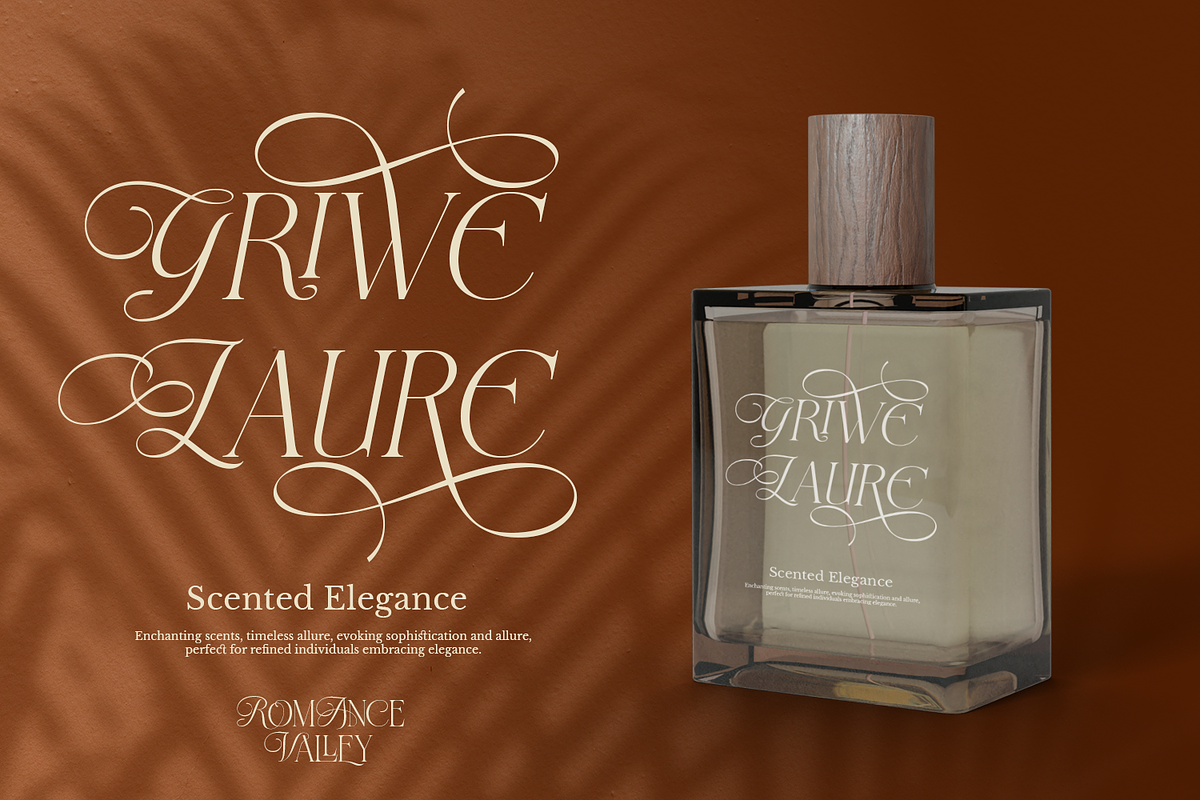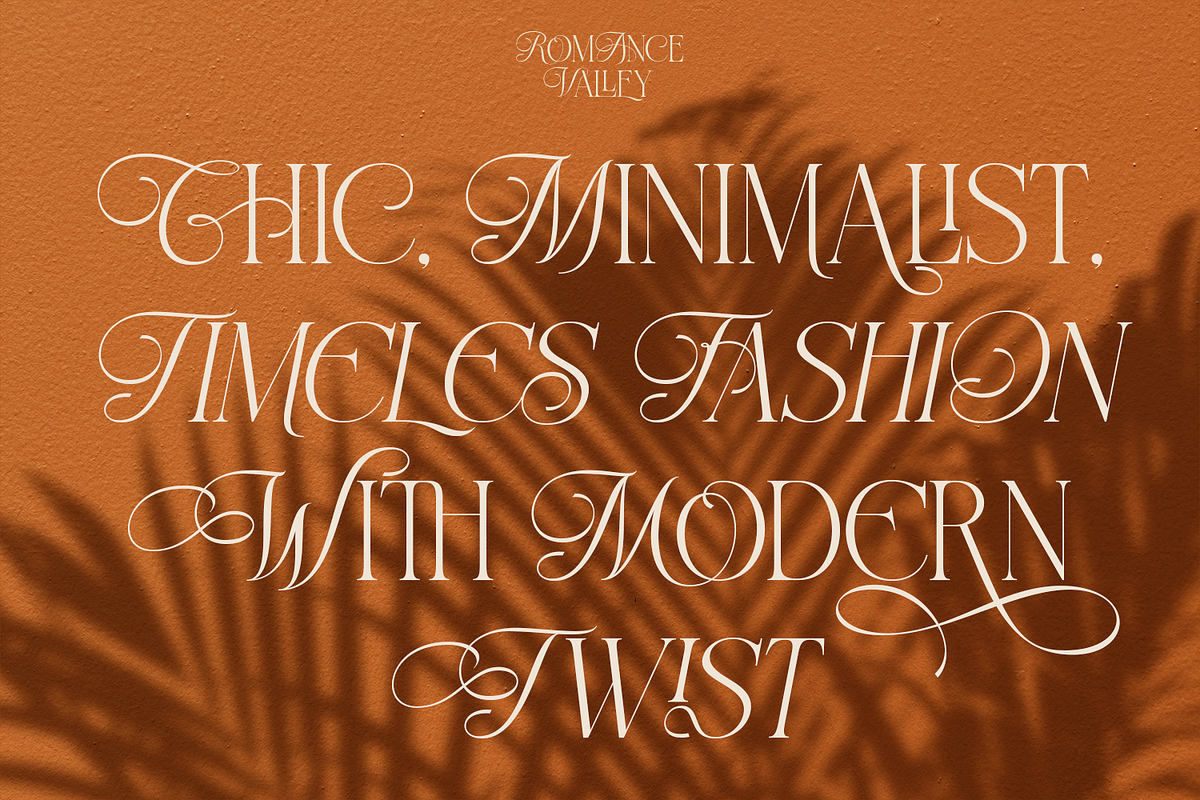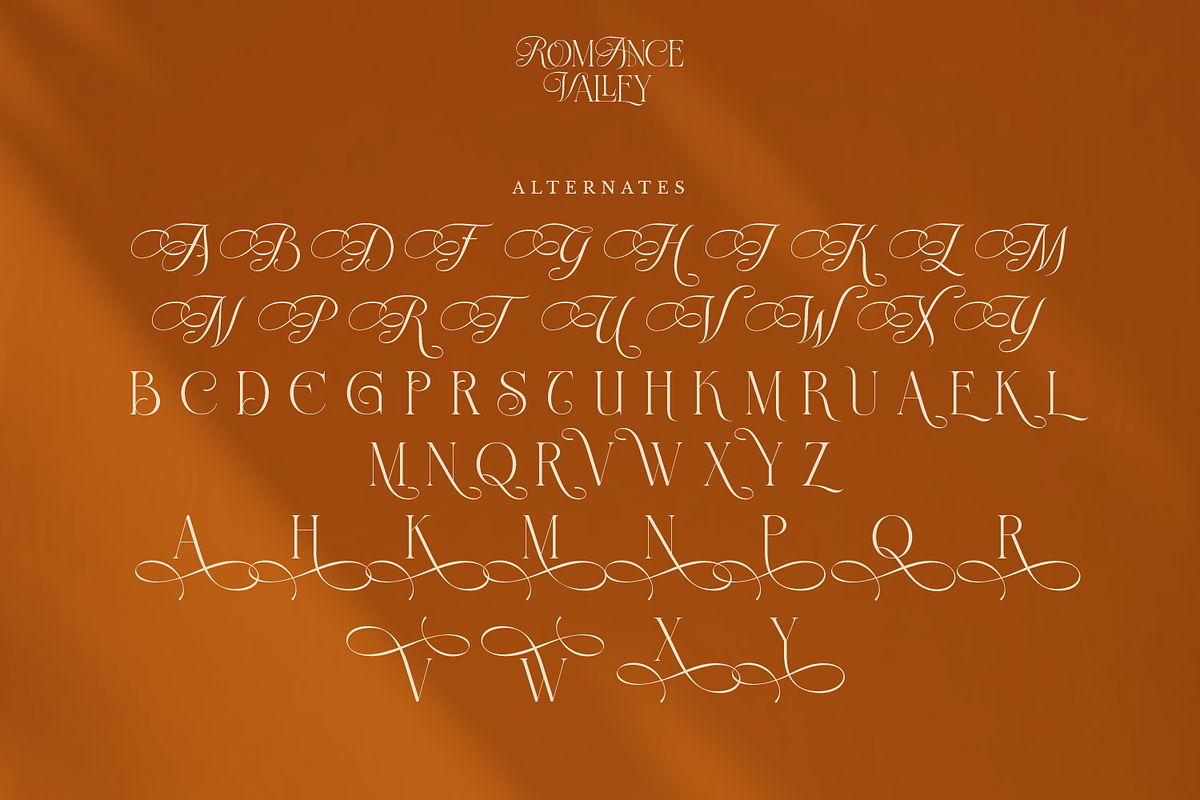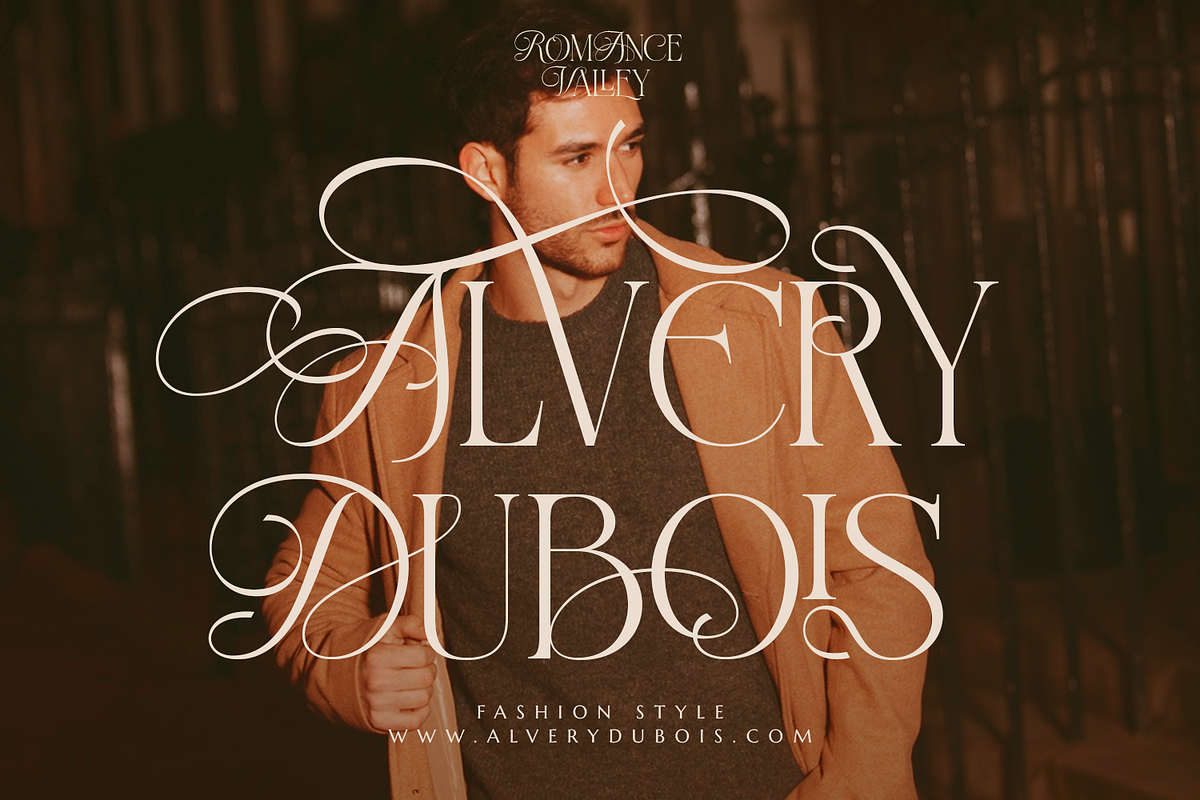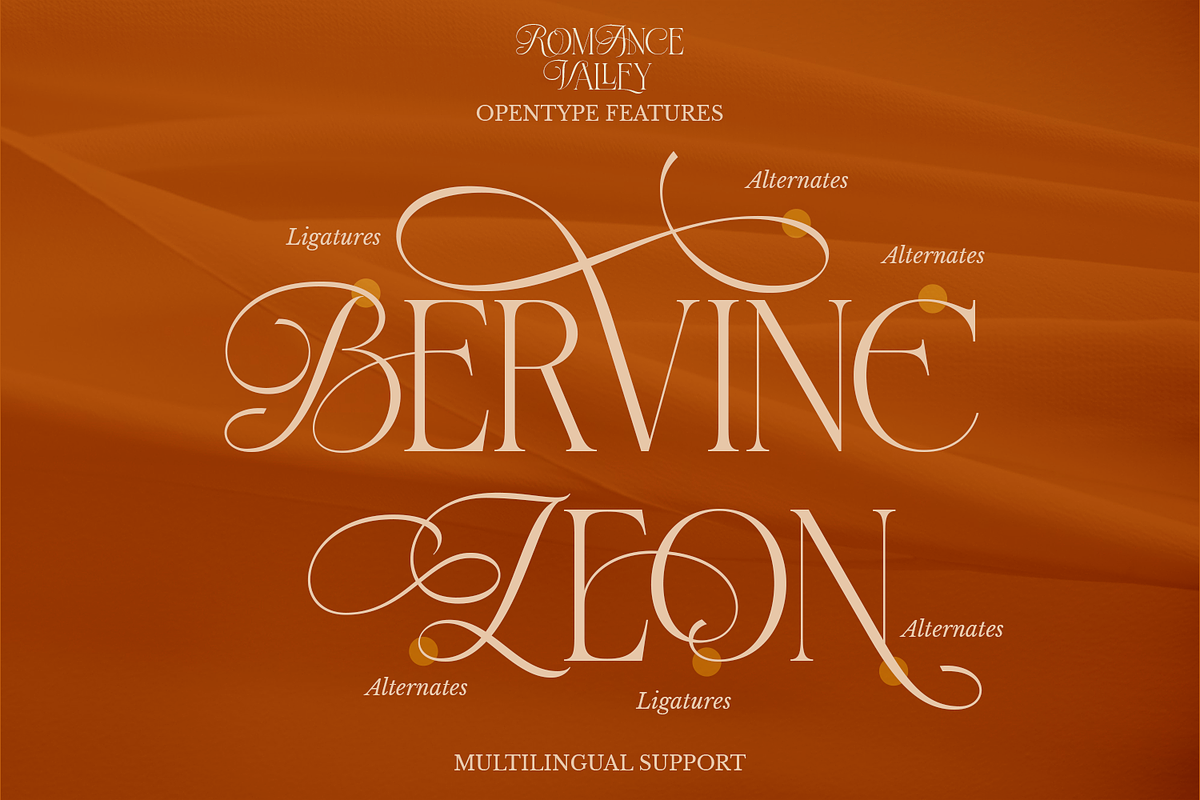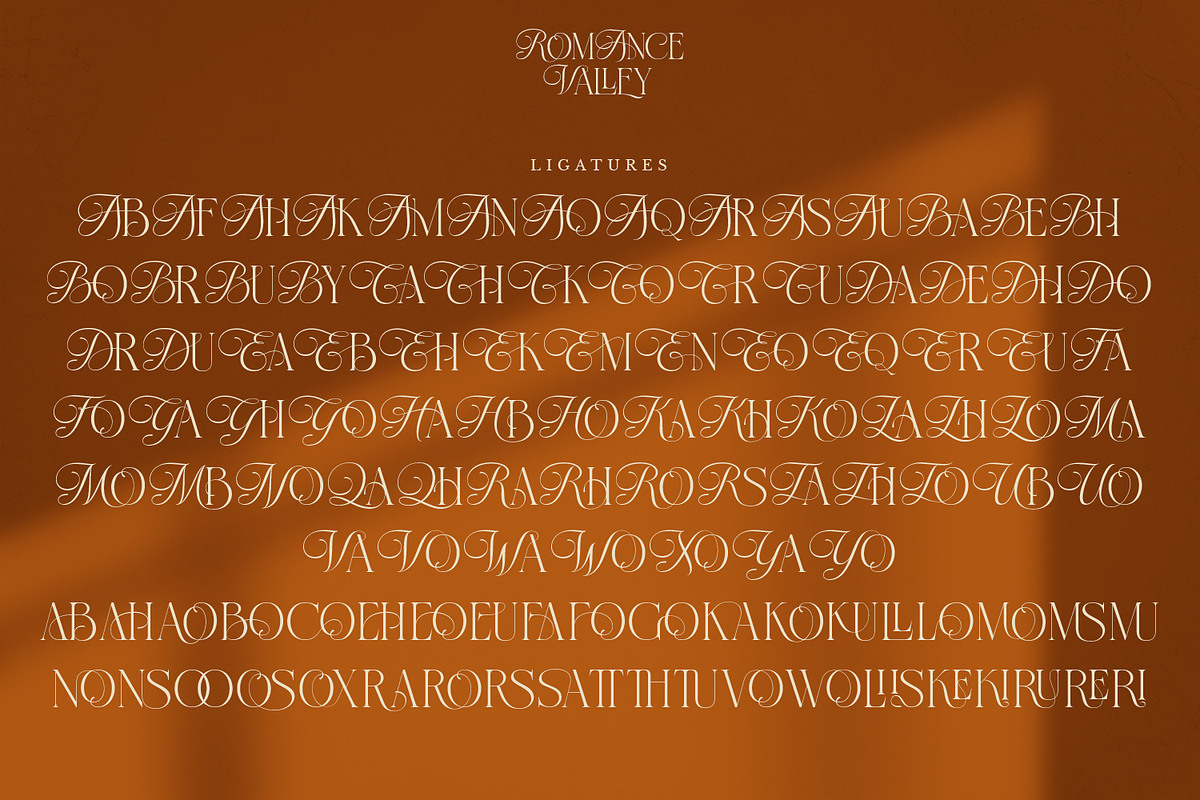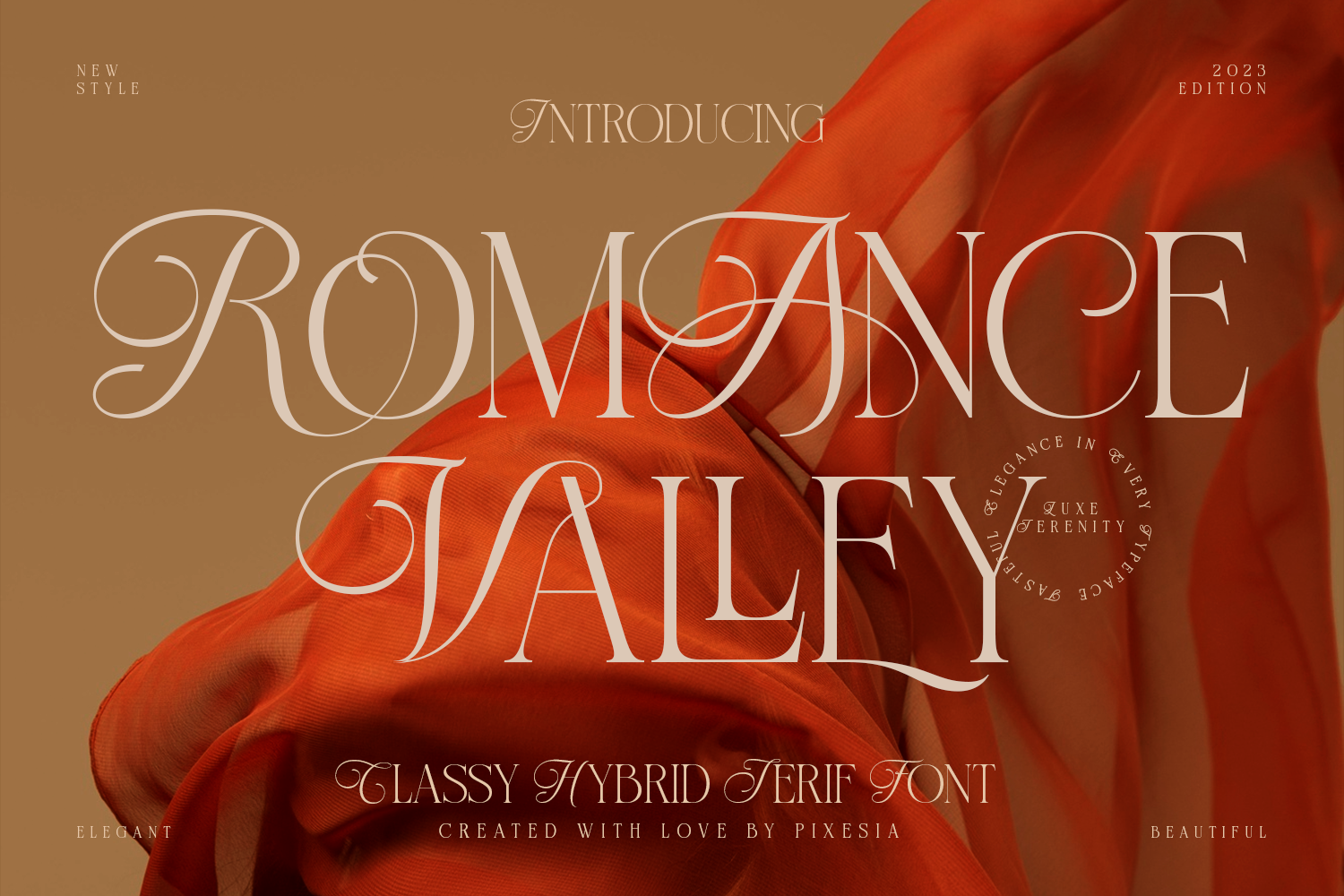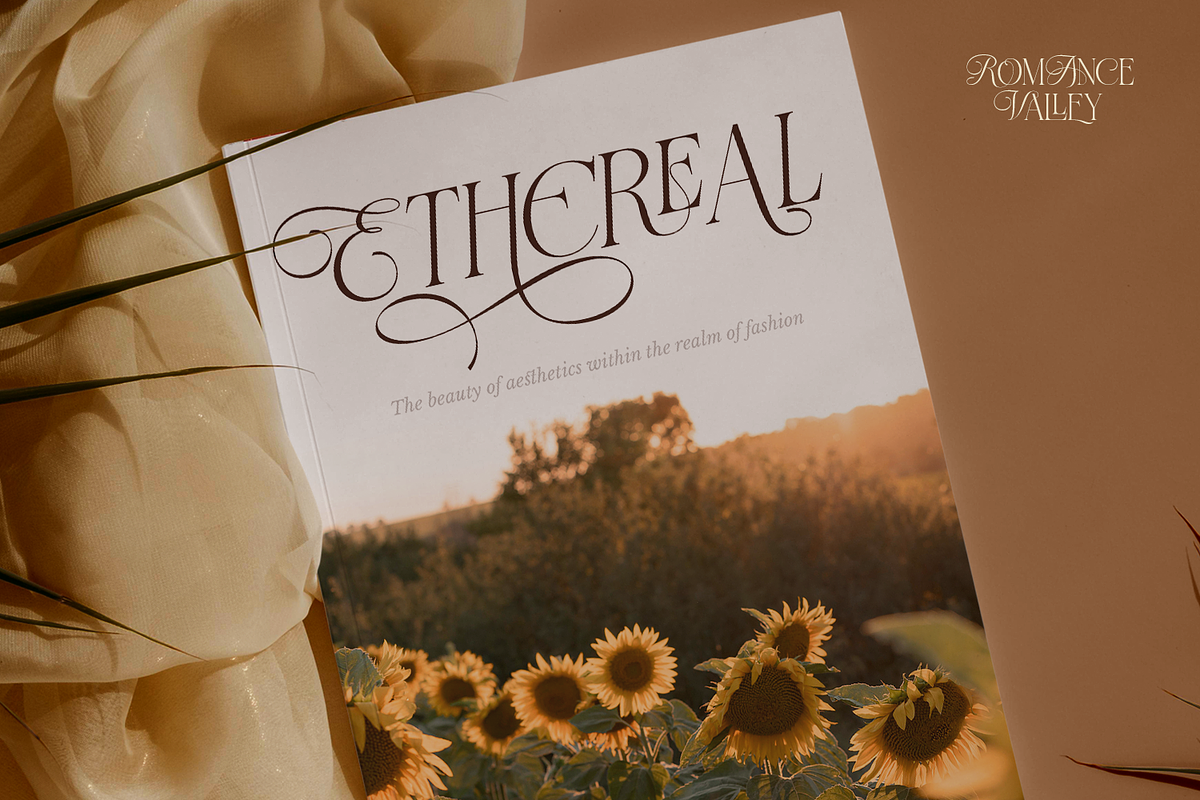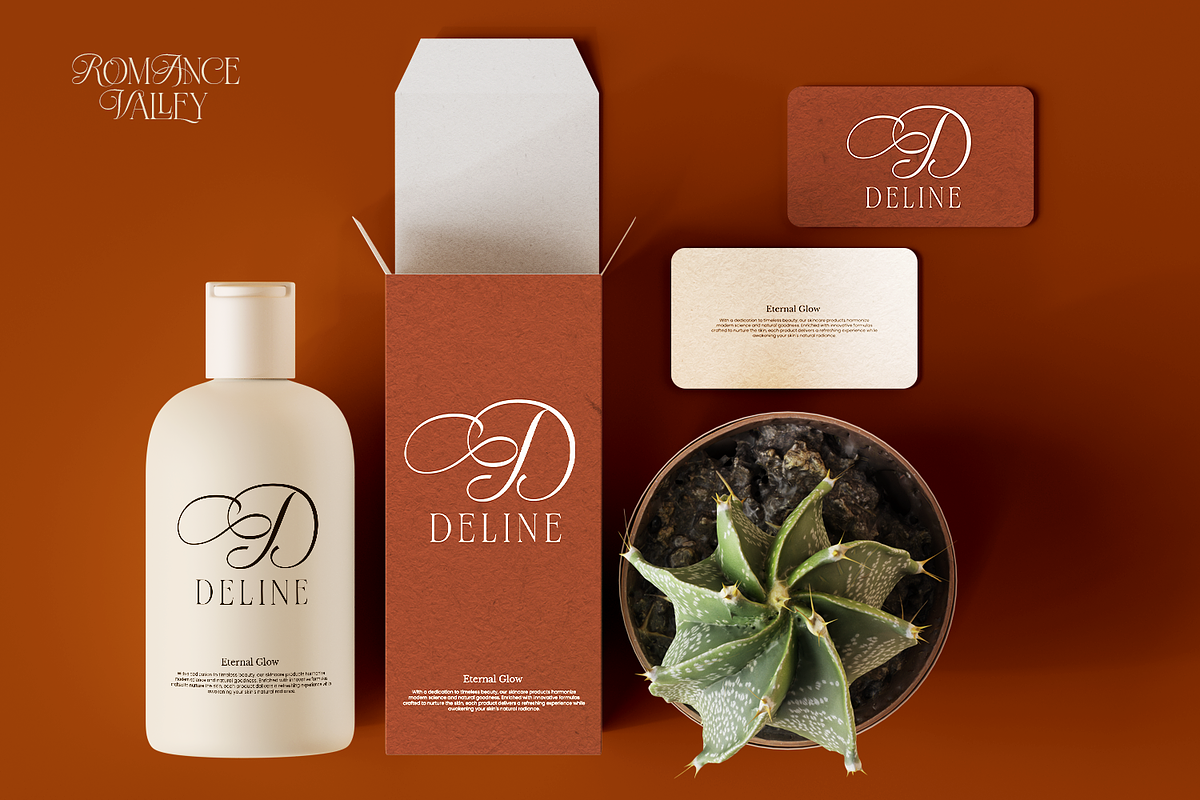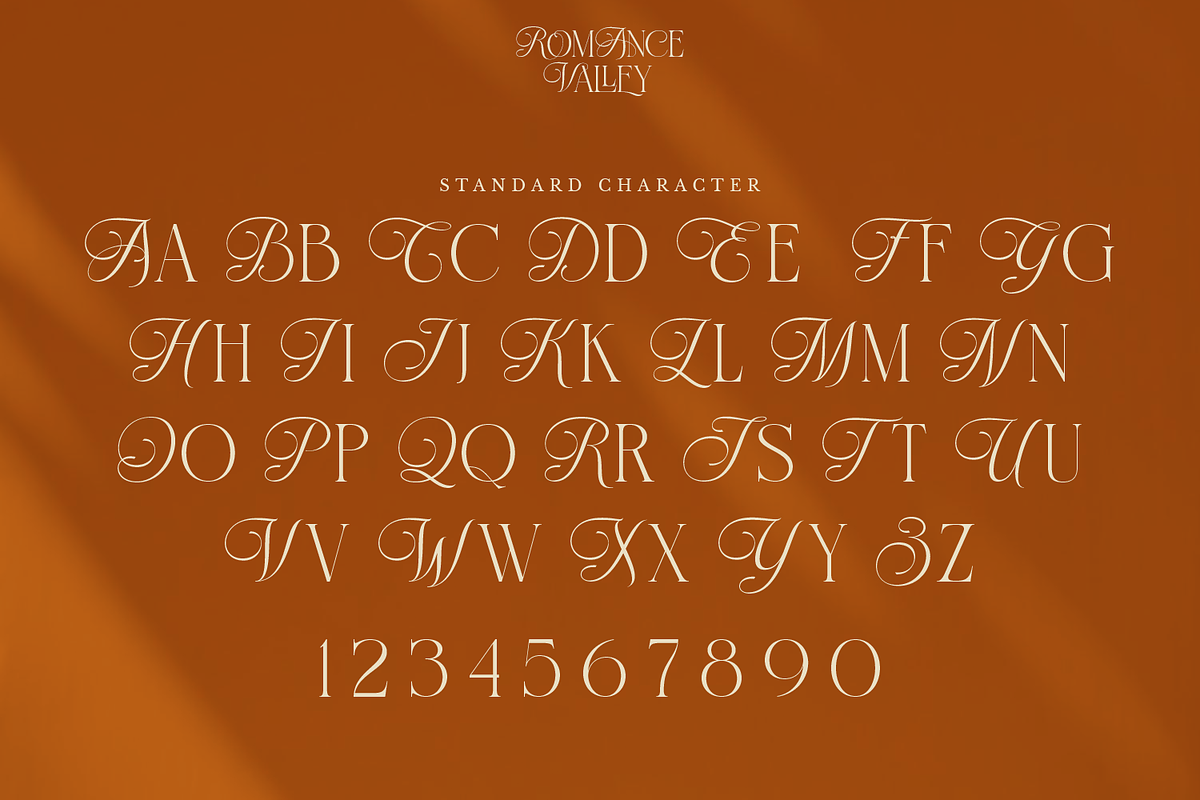
Romance Valley - Ligature Serif Font
Introducing Romance Valley - Modern Hybrid Font
Romance Valley is a beautiful and inspiring hybrid font that combines classic calligraphy and modern serif. With its flowing curves and intricate details, Romance Valley creates a sense of grace and beauty that is both timeless and modern. The font features a wide range of characters, including with +117 unique Ligatures and +60 Alternates, making it versatile for use in a variety of design applications.
Romance Valley is perfectly suited for branding, logotype, social media posts, advertising, product packaging, label, photography, watermark, t-shirt, website design, invitation, stationery and any projects seeking a touch of romantic elegance with a modern flair.
- Romance Valley Regular
- Romance Valley Italic
- Multilingual Support including Afrikaans, Albanian, Basque, Catalan, Danish, Dutch, English, Estonian, Faroese, Filipino, Finnish, French, Galician, German, Icelandic, Indonesian, Irish, Italian, Malay, Norwegian Bokmål, Portuguese, Spanish, Swahili, Swedish, Zulu